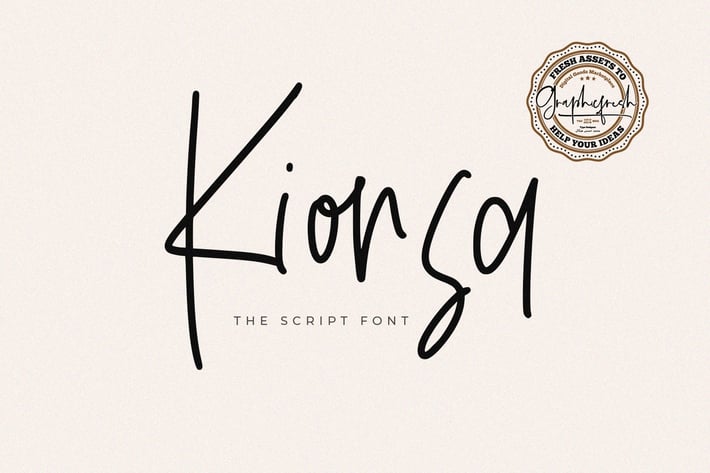
Kionsa Script Typeface Font
Kionsa Script Typeface Font. It comes with an elegant, cute and feminine style which is perfect to make any design stand out! This font is perfect for branding, wedding invites, magazines, mugs, business cards, quotes, posters, and more.
Kionsa Script Type Features:
- Numerals & Punctuations
- 72 Ligatures
- Suitable for Headlines, Logotypes, Signs, Posters, Letterhead, T-Shirt and many more.
- Support International Language